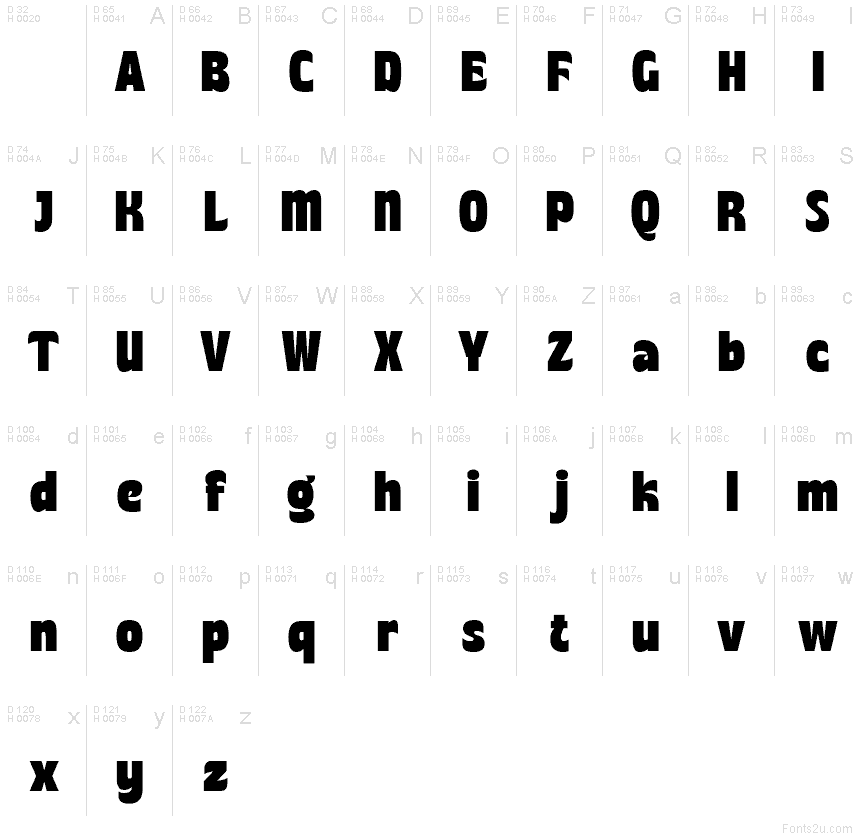
CS Bingley Regular Demo
CS Bingley font by Craft Supply Co. is a free bold sans serif display font. It solves that tricky brief: you want heavy impact without the hard, shouty edges. Thick, even stems and soft-edged joins give it a cushioned punch, while the compact width and generous x‑height keep lines tight and readable. The rhythm feels steady and confident, so headlines land with weight but still feel friendly.
This free font shines on branding, posters, packaging, social thumbnails, signage, event flyers, and merchandise. Using CS Bingley, you get chunky forms that fill space cleanly and hold up at small sizes, thanks to smooth curves and balanced spacing. Pair with a light, neutral grotesk for body copy, and give headlines a hair of negative tracking to lock in the boldness.